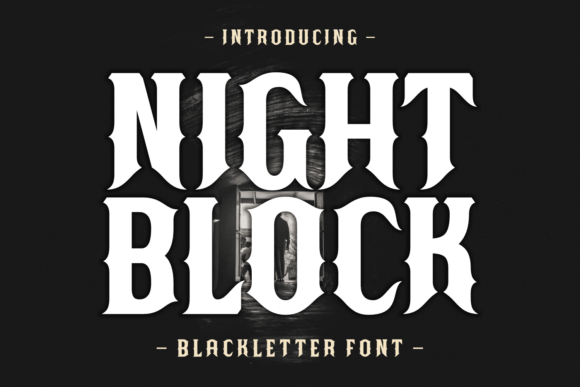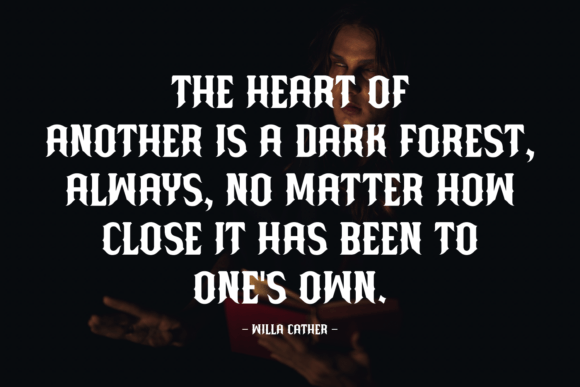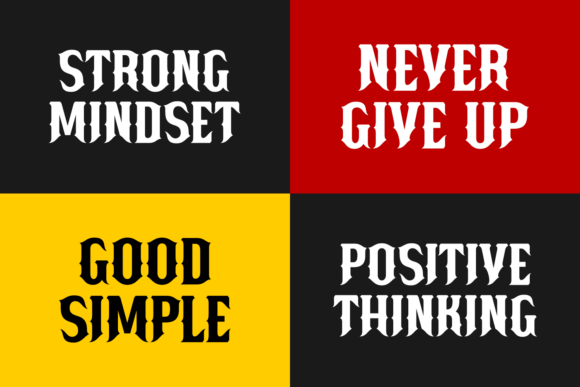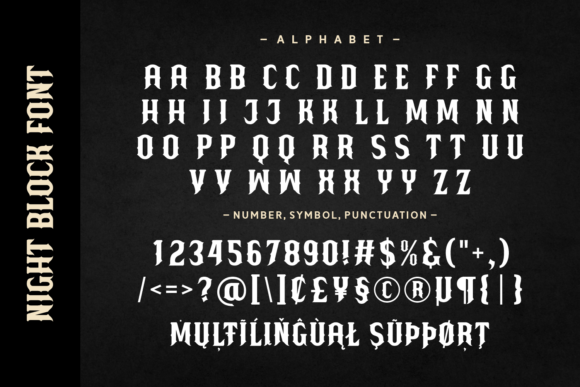
Night Block Font: Bold Blackletter for Vintage Logo Design
About the Night Block Font
Elevate your designs with Night Block Font, a font that combines sophistication with readability. Night Block is a bold blackletter font with a classic, medieval style. Its thick, sharp lines and decorative details make it stand out. This font is perfect for designs that want a dramatic and vintage look, giving a sense of elegance and history.
Night Block excels in headlines, short titles, and logos where its strong presence commands attention. It’s ideal for branding projects aiming for a vintage or gothic aesthetic, particularly in posters, packaging for luxury goods, or invitations requiring a dramatic feel. Avoid using it for body text or lengthy passages; its highly decorative nature hinders readability in extended use.
Its bold personality pairs well with clean sans-serif fonts like Helvetica or Futura for contrast, providing readability where Night Block is used sparingly. Alternatively, a delicate script font can add a touch of elegance, softening Night Block’s medieval intensity. Consider pairing it with a geometric sans-serif for a more modern, yet still impactful, design.
The overall mood is serious and elegant, with a touch of rebellion. Brands seeking to project authority, sophistication, or a historical connection will find Night Block a powerful visual tool.
Night Block Font Usage Examples
Night Block Font Example